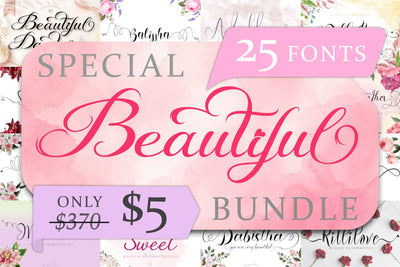
Beautiful Special Bundle
This package contains 25 stunning fonts for you to use in your upcoming projects.
This Bundle contains 25 beautiful fonts:
1. Mikella
2. Betharia
3. Bialletta
4. Adellia
5. Shalitta
6. Khalitta
7. Meillea
8. Alletha
9. Sherllia
10. Rossaline
11. Rillilove
12. Beathria
13. Astherlia
14. Berthessa
15. Billetha
16. Monalissa
17. Dabistha
18. Balissha
19. Roshalia
20. Bhaillia
21. Dhefentha
22. Mella Sweet
23. Beautiful Danila
24. Ametha Sweet
25. Angelia Valentine